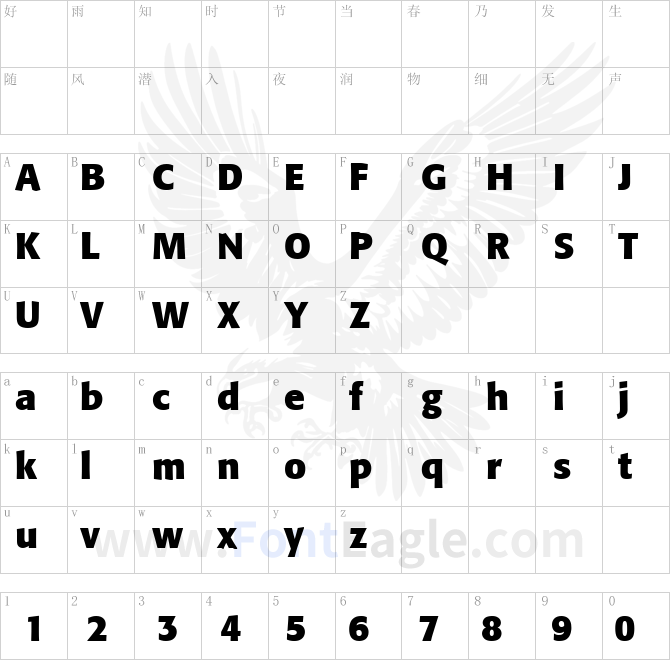
- Font name:Formata
Formata-Bold is a great font, widely used in graphic design, single-page menu design, poster design and other fields, and is deeply loved by designers.Formata-Bold download.